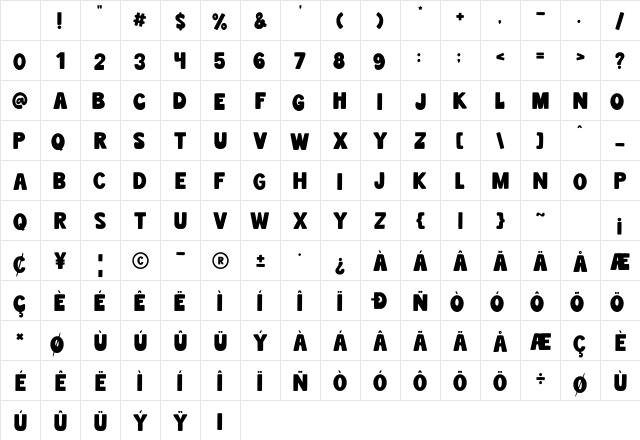
Complete Wonderful Snowflake Regular glyph index. Displaying only characters natively supported by Wonderful Snowflake Regular font.
Wonderful Snowflake is a composed and adaptable typeface that performs quietly and consistently across a wide range of design contexts.
Pro Tip: Use Wonderful Snowflake in both headline and body roles to test its range before committing to a single application.